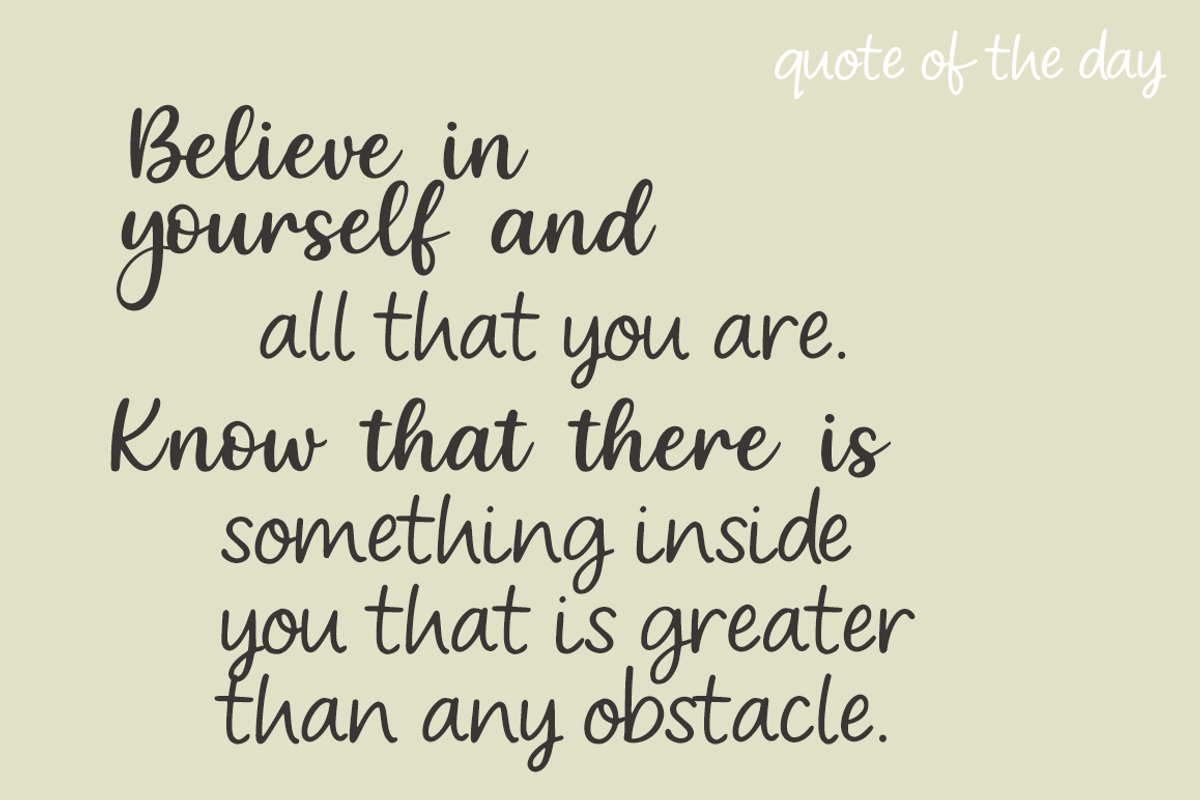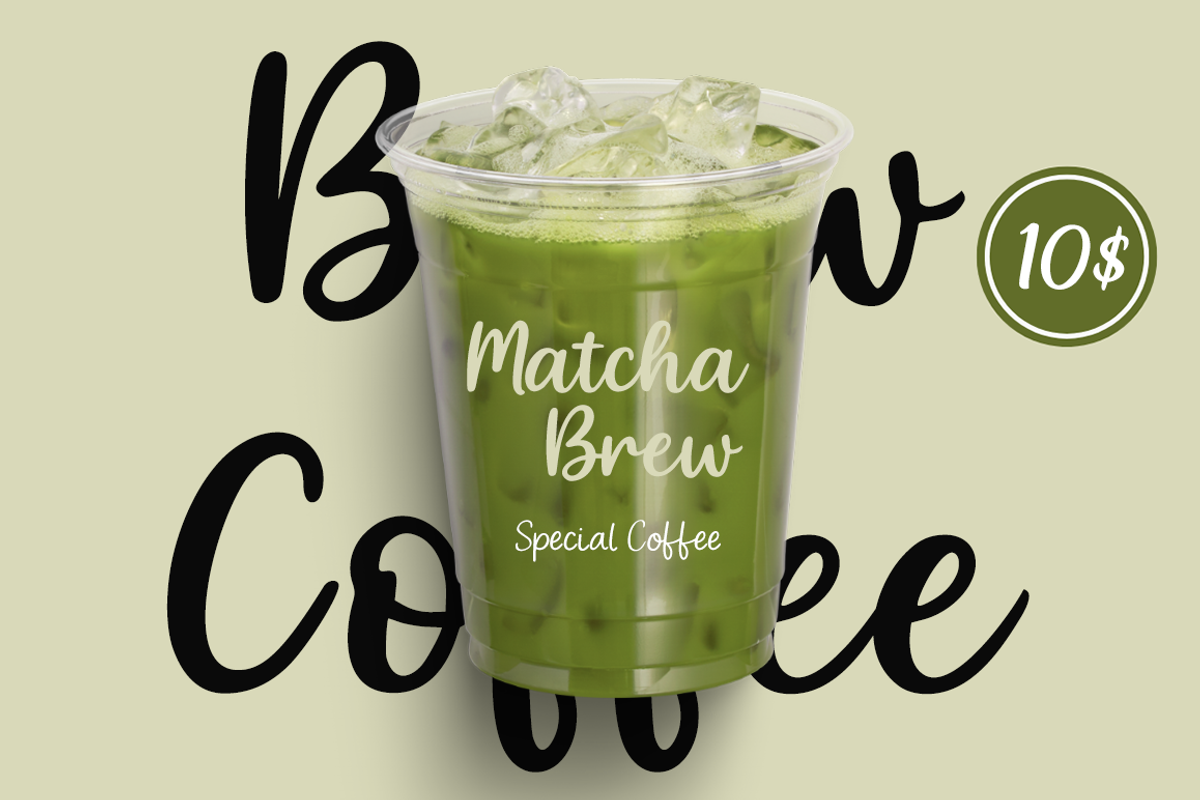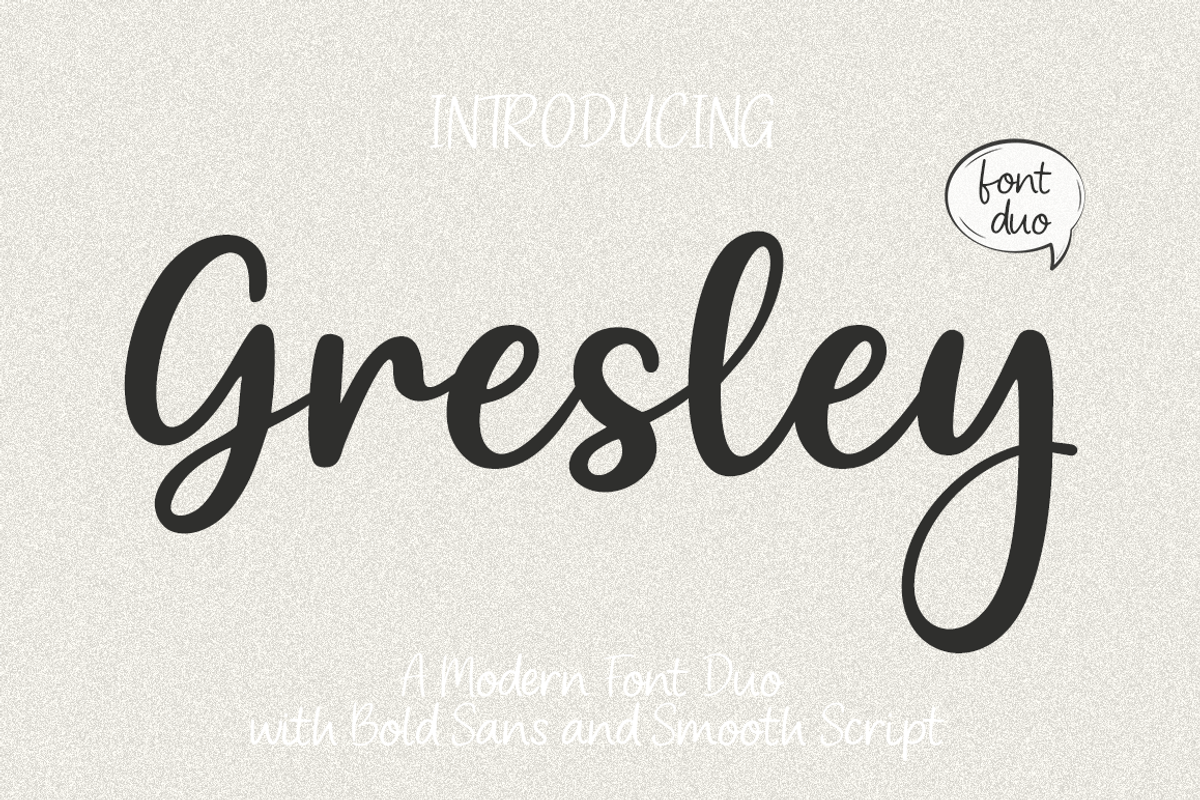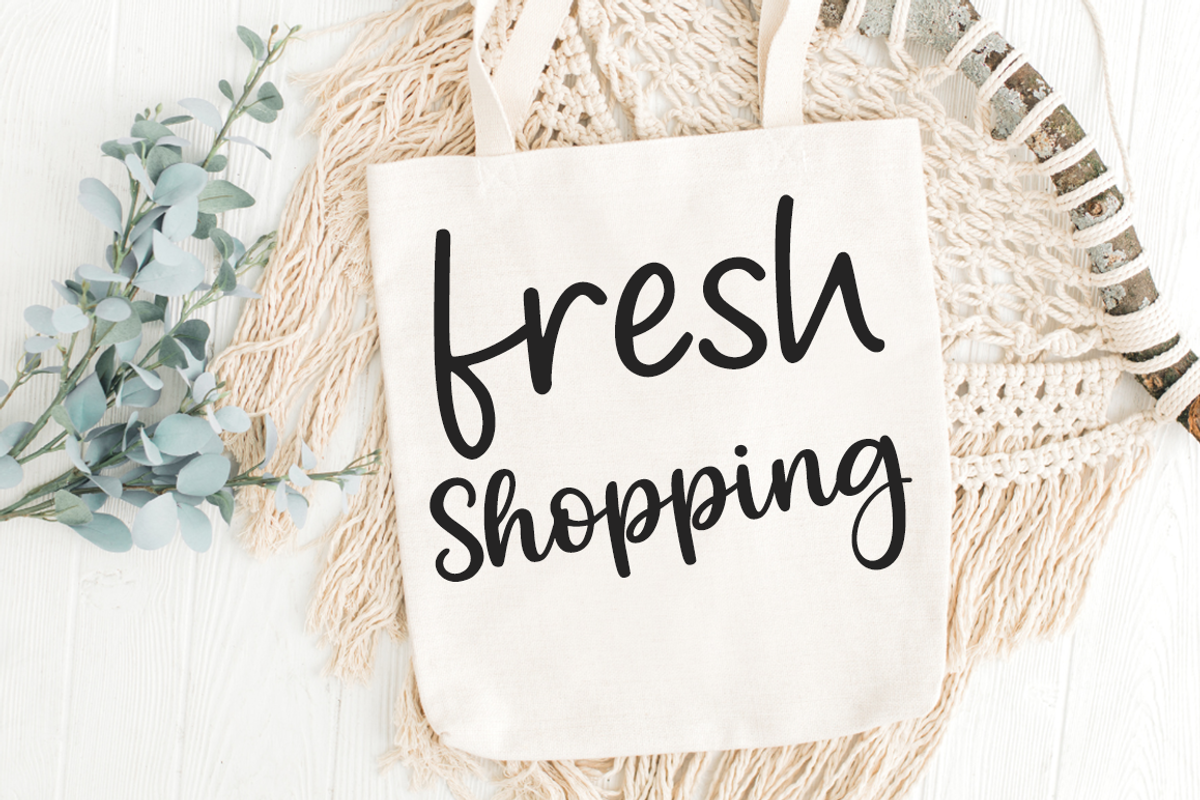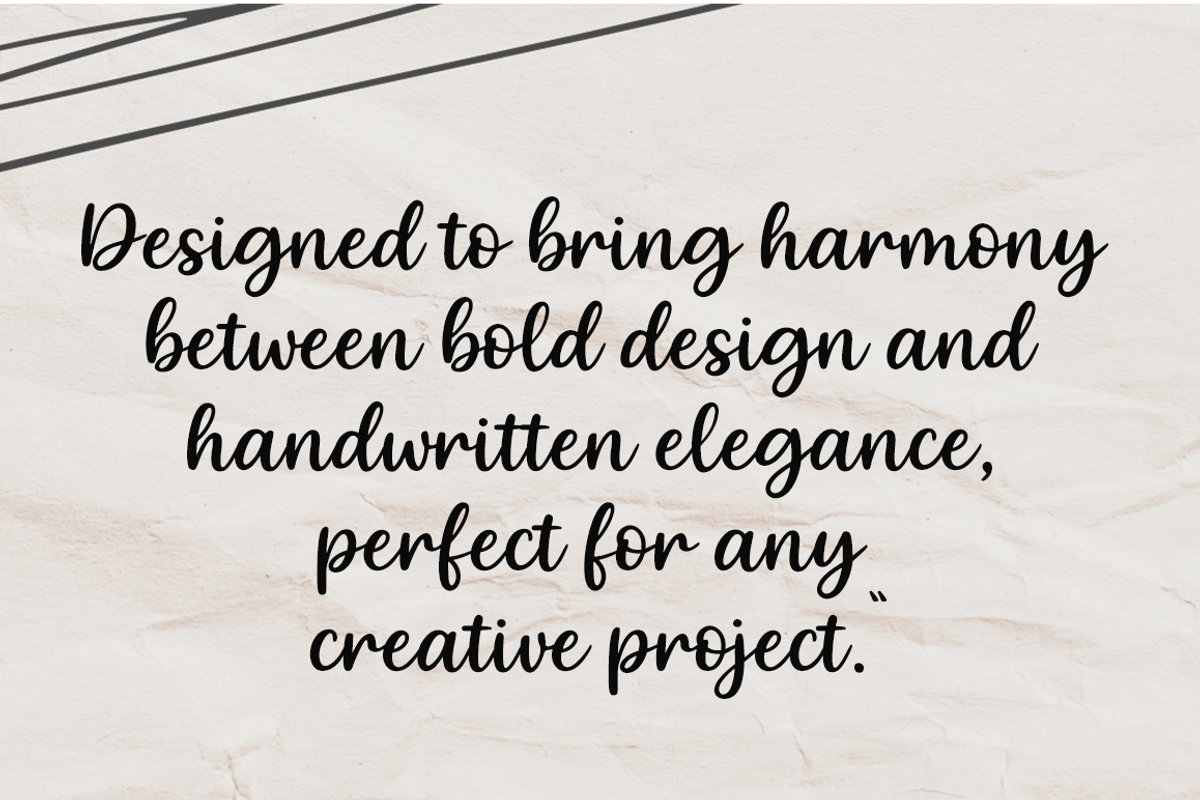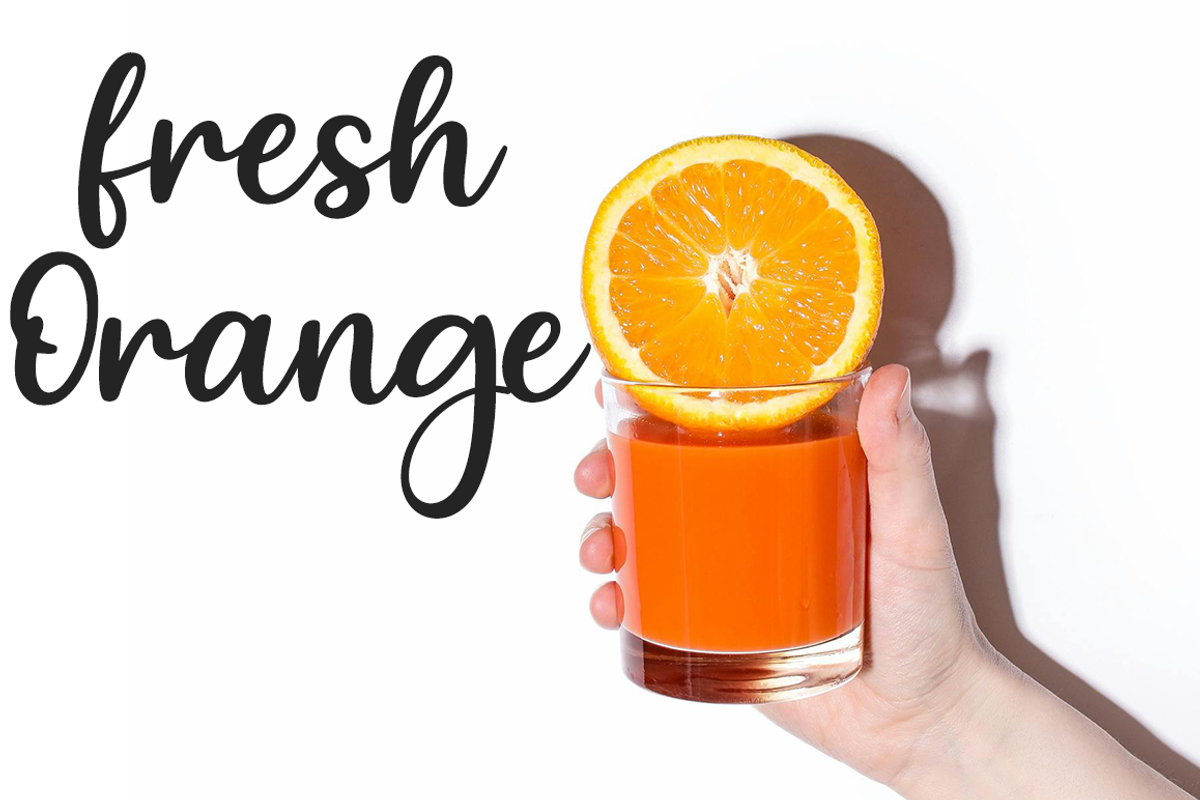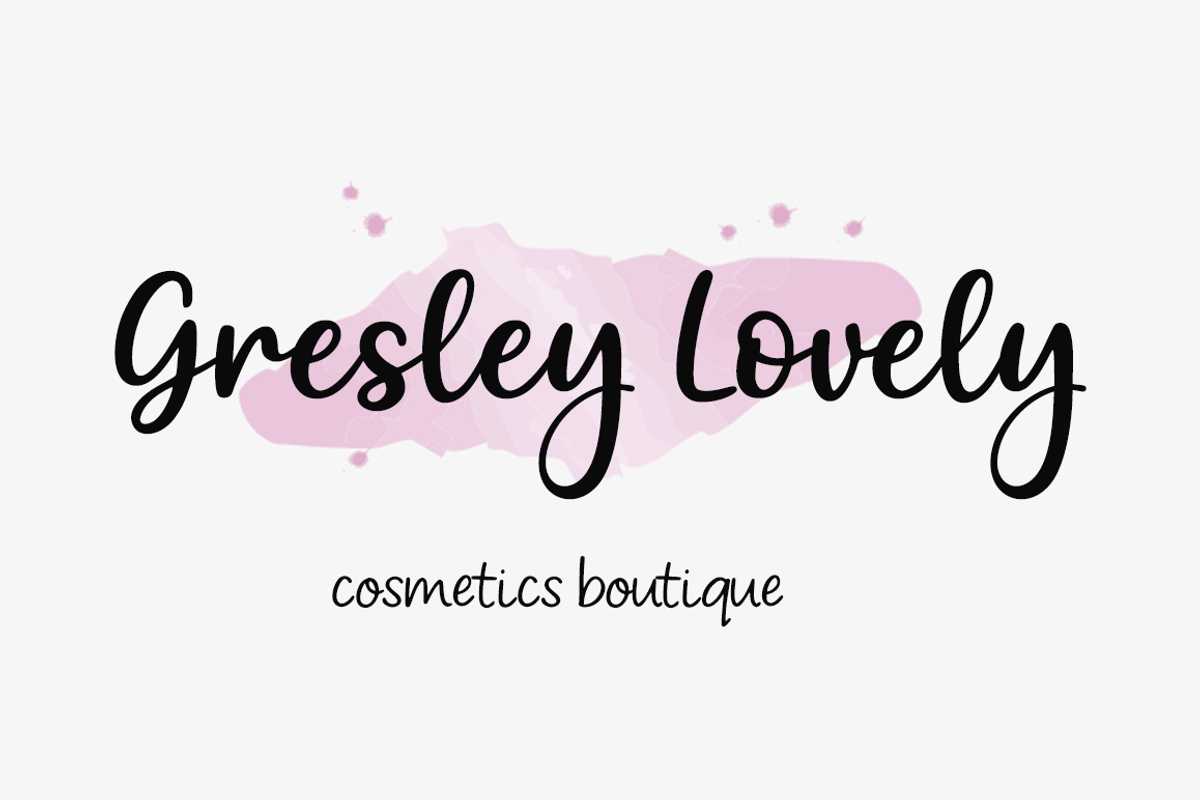
Gresley Modern Font Duo Sans & Scrip
Gresley – A Modern Font Duo Gresley is a modern and versatile font duo that blends bold sans design with smooth handwritten script.
The combination creates a balanced contrast between strength and elegance, suitable for a wide range of design applications.
The sans typeface provides clarity and structure for titles and headlines, while the script version offers a natural, flowing rhythm that enhances visual harmony.
Together, they form a timeless duo crafted for modern creative work.